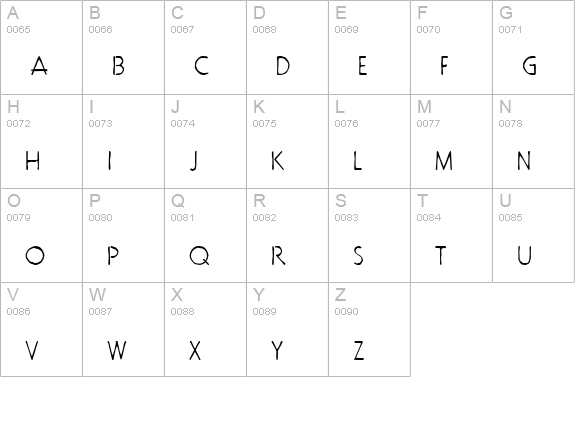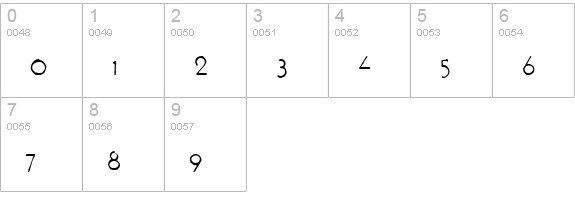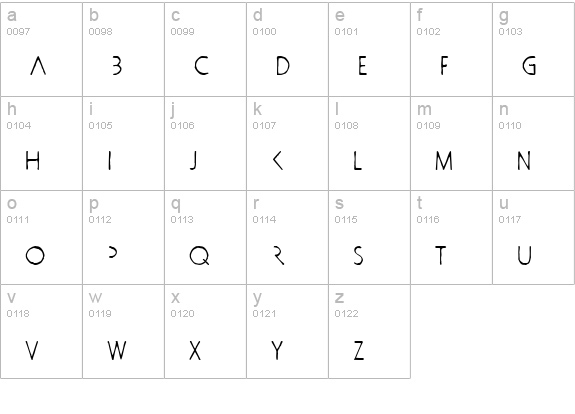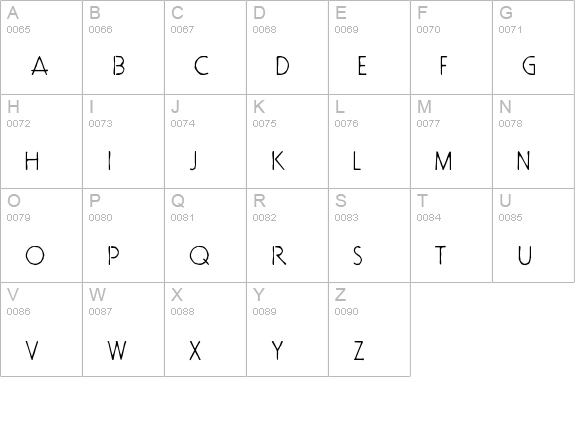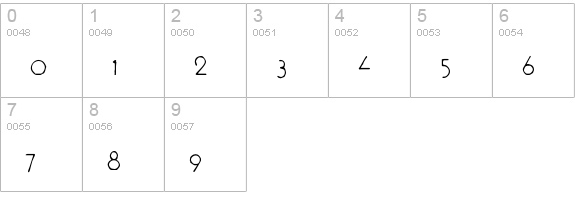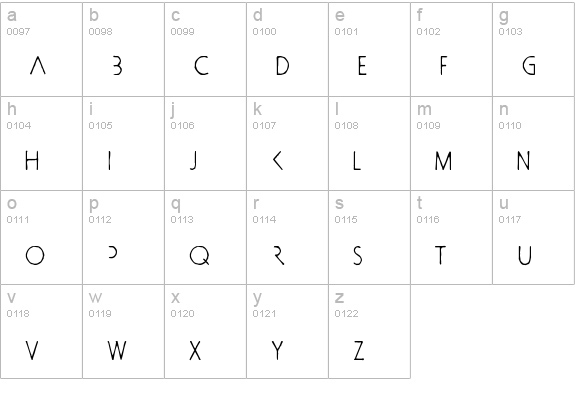
doctorBob Font Details
Introducing doctorBob font – a versatile and modern typeface that is sure to make a statement in your design projects. With its clean lines and contemporary style, doctorBob font is perfect for a wide range of applications, from branding to editorial design. This font exudes a sense of professionalism and sophistication, making it ideal for any project that requires a touch of elegance. What sets doctorBob font apart is not only its sleek design, but also the fact that it is available for free download at FontsMarket.com. That's right, you can elevate your designs with this beautiful font without having to spend a penny. Whether you're working on a print project, a website, or anything in between, doctorBob font is sure to add a touch of class and refinement. So why wait? Download doctorBob font today and take your design projects to the next level. With its modern aesthetic and timeless appeal, this font is sure to become a staple in your typographic toolkit.